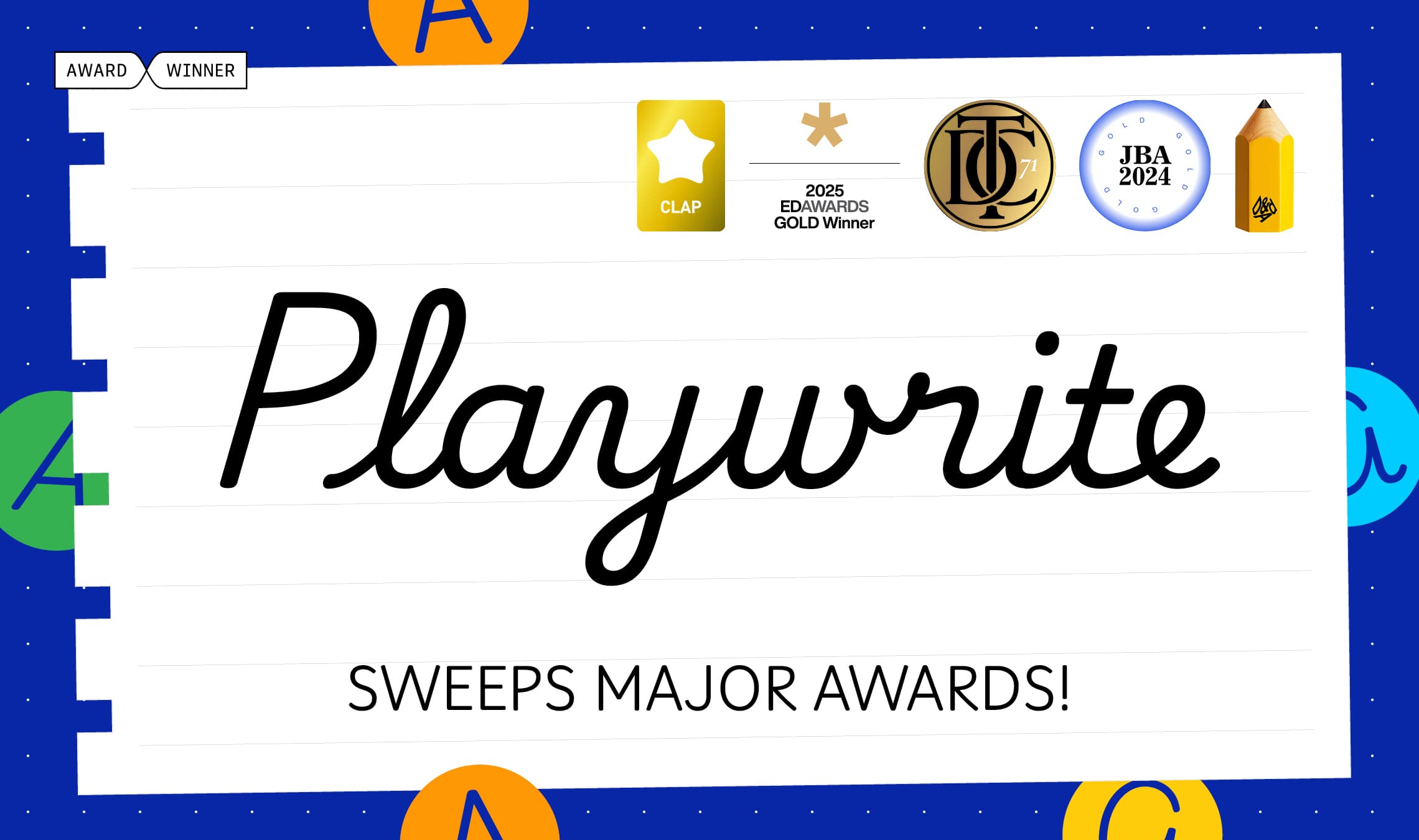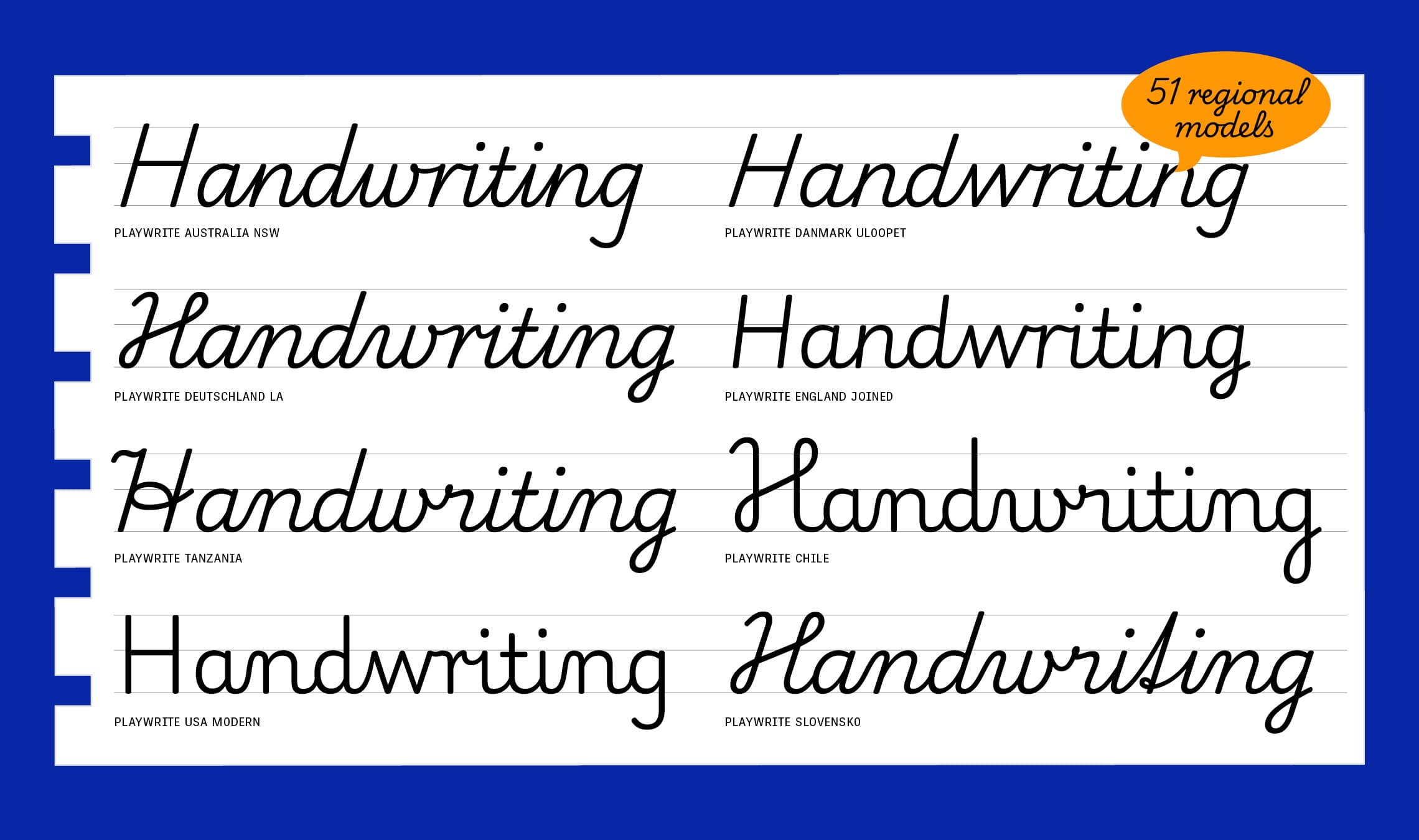
Playwrite wins it all!
With last week’s gold in the 2025 European Design Awards, our Playwrite type engine for handwriting education has won an impressive string of major international typography and design awards: Premios CLAP, the TDC award, gold at Joseph Binder, gold at ED-Awards, and the yellow pencil — the highest award and the only type design to be awarded this year — from Design & Art Director (D&AD) awards.
Playwrite is not just a font family, but a typeface engine that allows the creation and customisation of primary school fonts for every Latin-based country in the world. The fonts are one result of TypeTogether’s ongoing three-year research project, Primarium, which studies global handwriting instruction methodologies. Playwrite is available as a free download at the Google Fonts website.